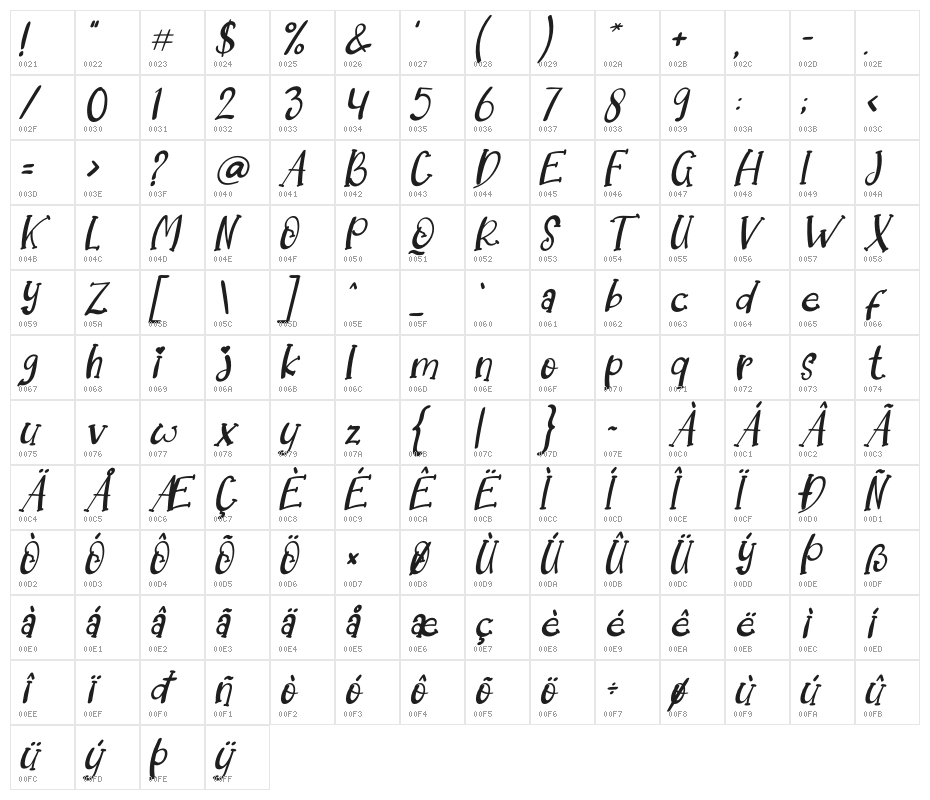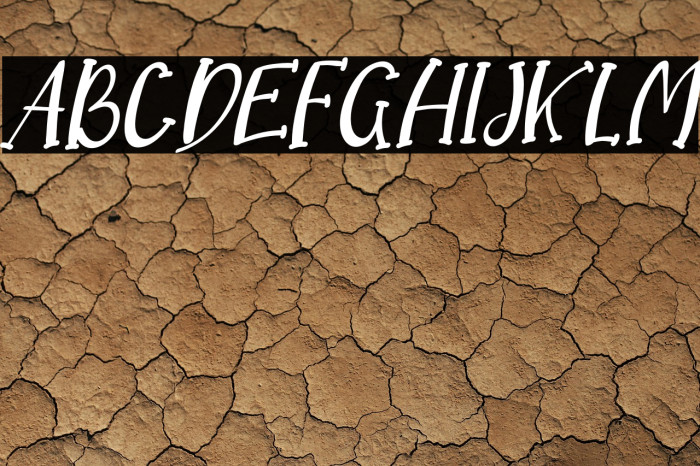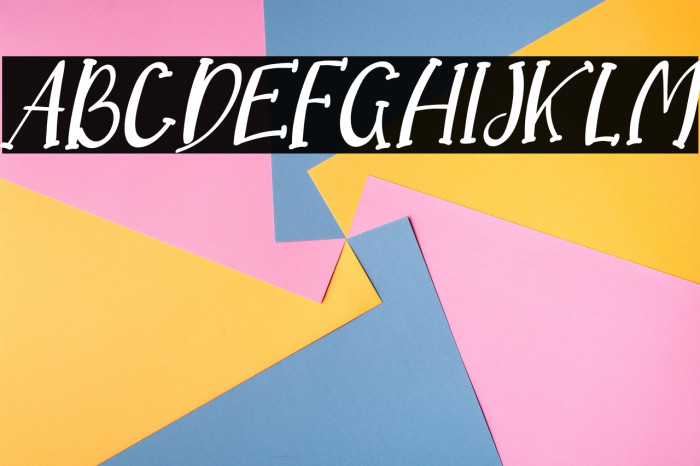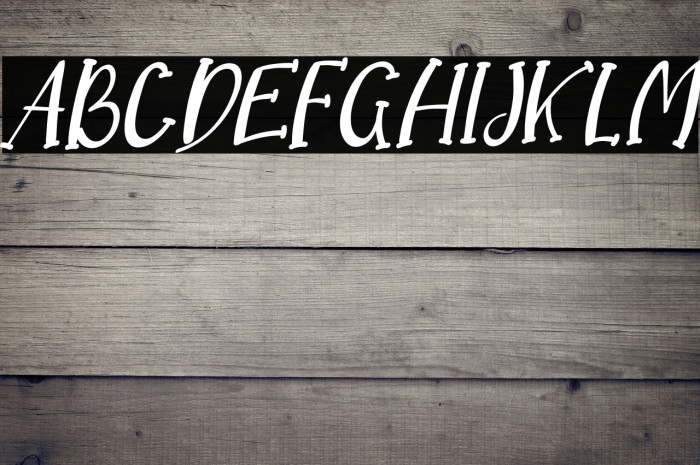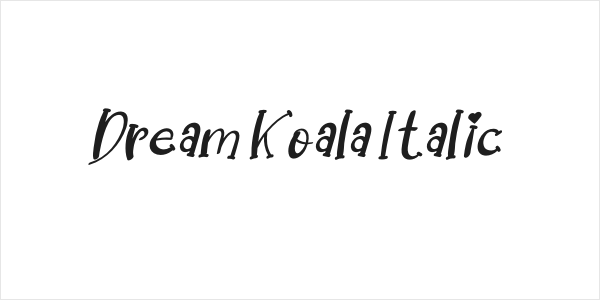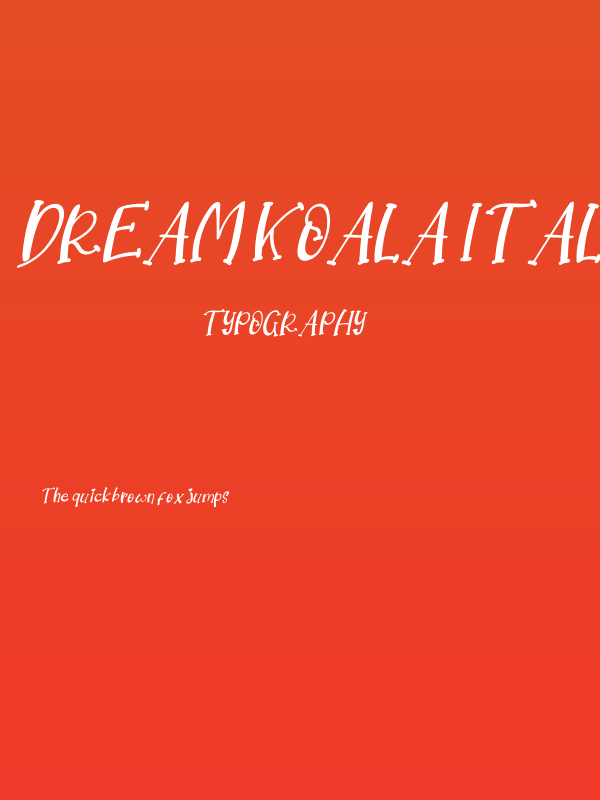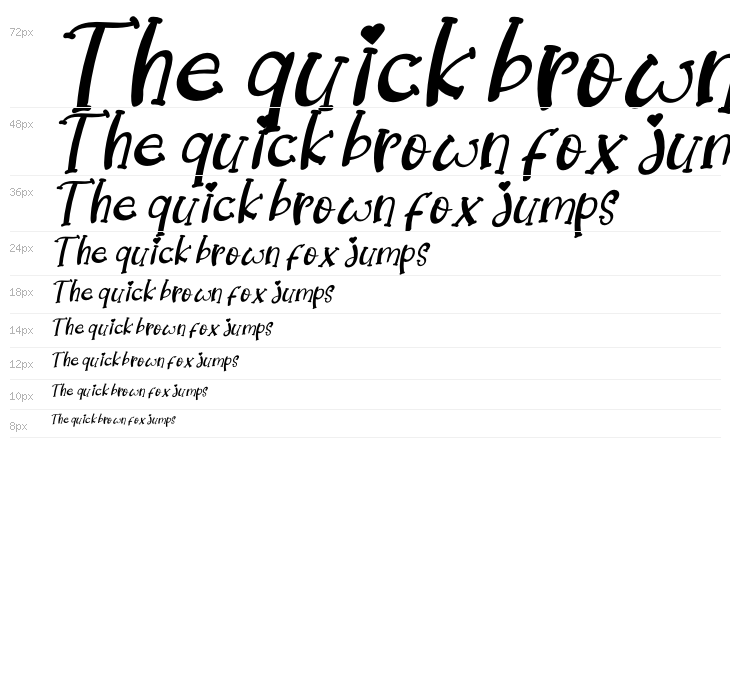
Dream Koala Italic Font
Dream Koala Italic Description
This font features a playful and dynamic script style with a noticeable slant, giving it an italicized appearance. The characters are bold and expressive, with a hand-drawn quality that adds a personal touch. The uppercase letters are tall and slightly narrow, while the lowercase letters maintain a consistent flow with rounded edges. Numbers and special characters follow the same lively style, making them stand out. The font's unique charm is enhanced by whimsical elements such as heart-shaped dots on the lowercase 'i' and 'j'. Overall, it conveys a sense of creativity and fun, suitable for projects that require a personal and informal tone.
| Proposed Projects | Ideal for greeting cards, invitations, playful branding, and creative posters. |